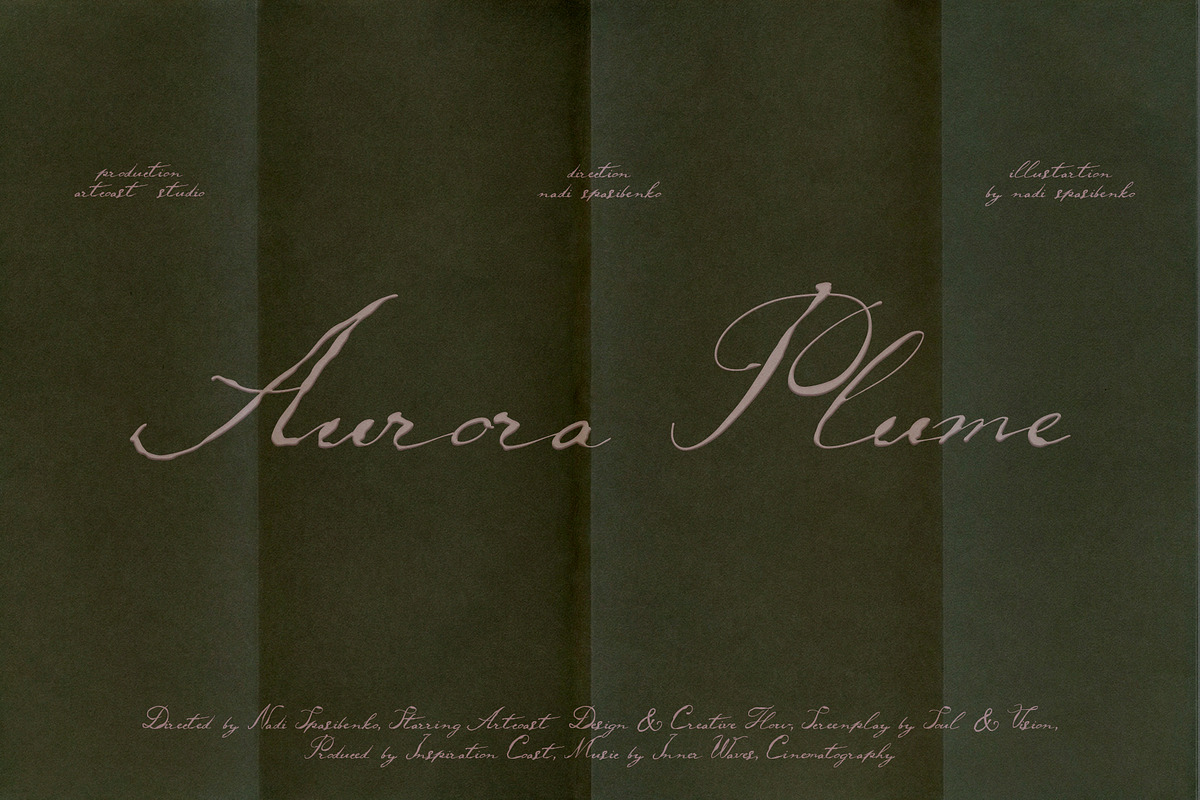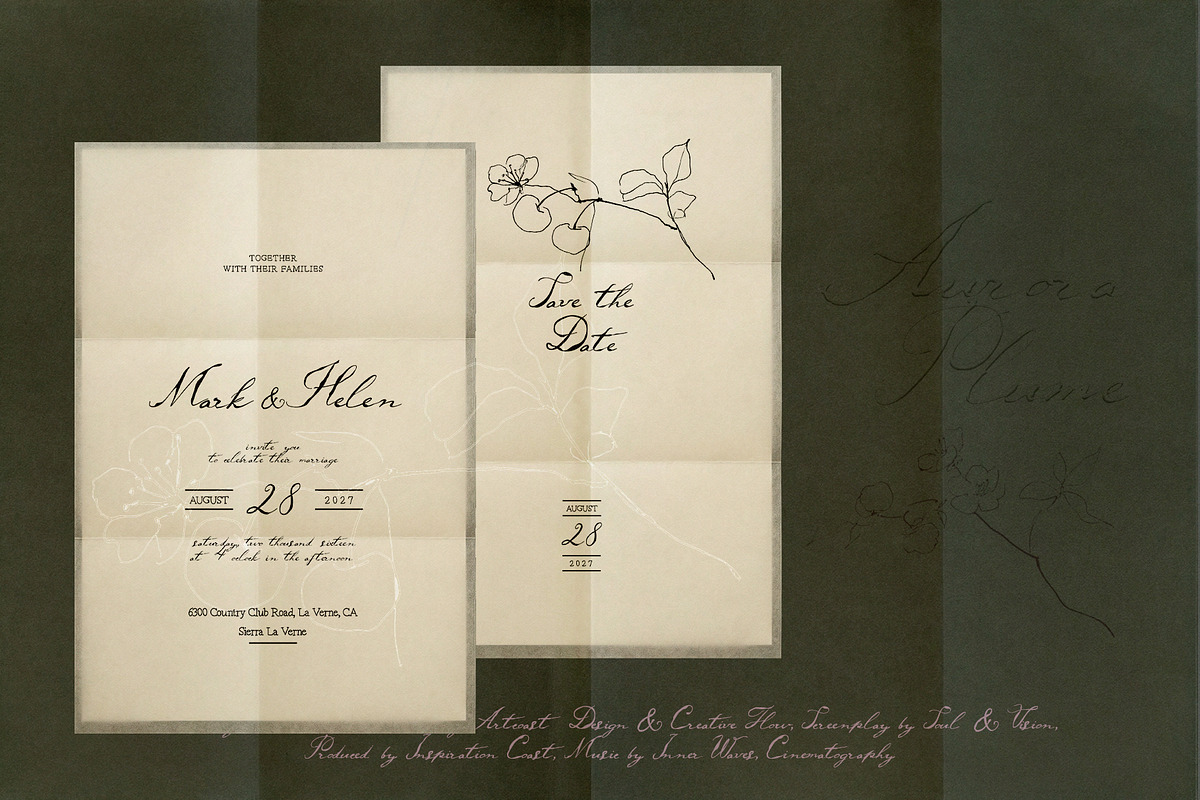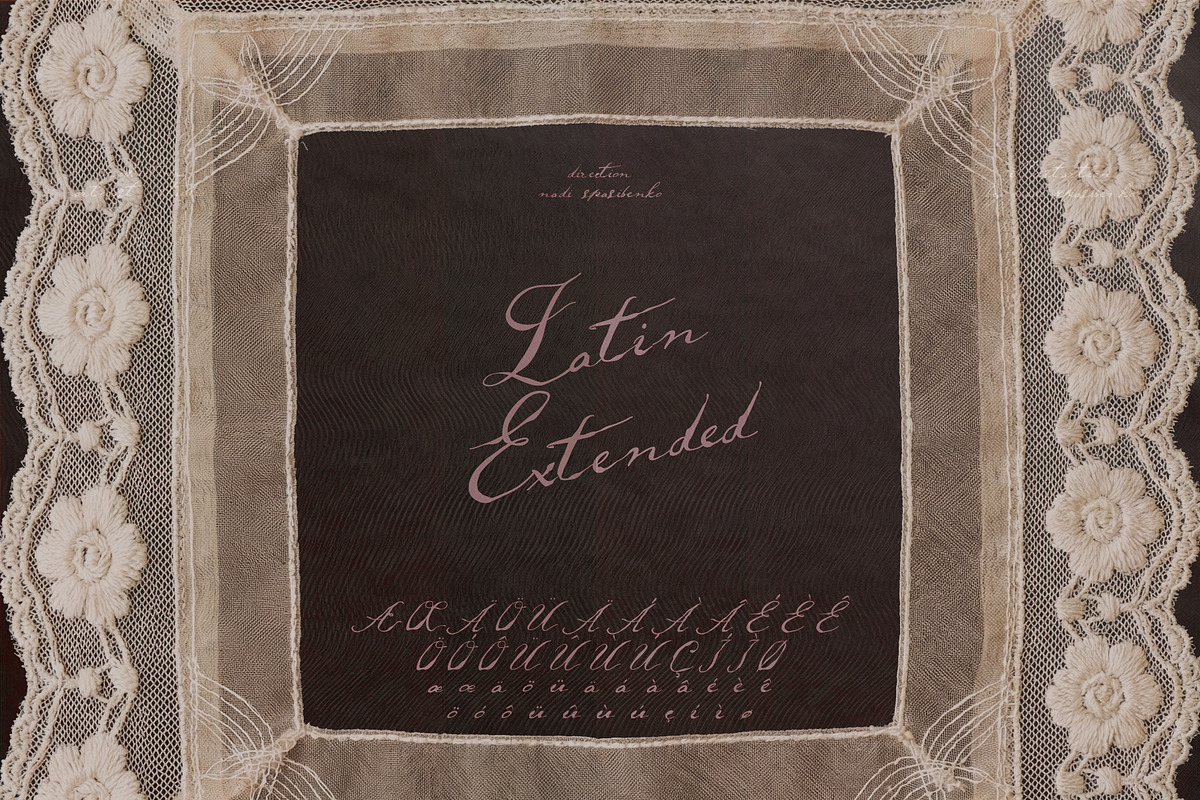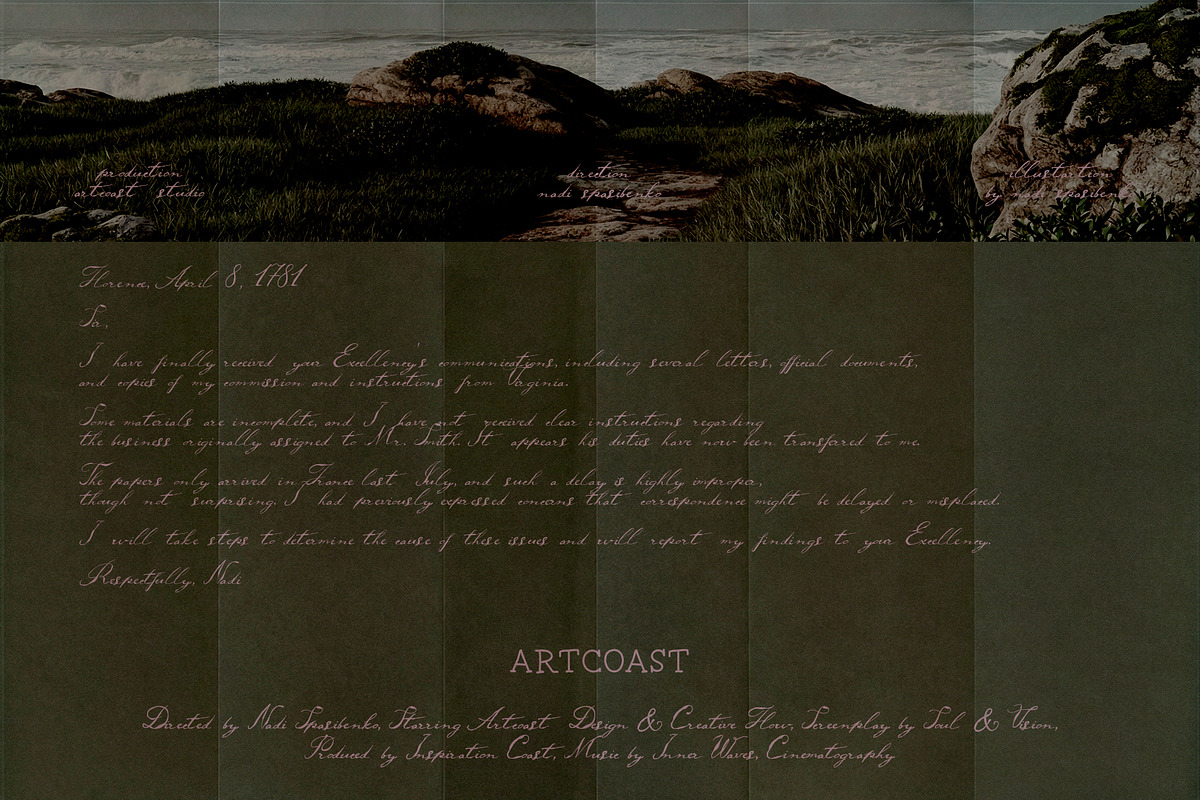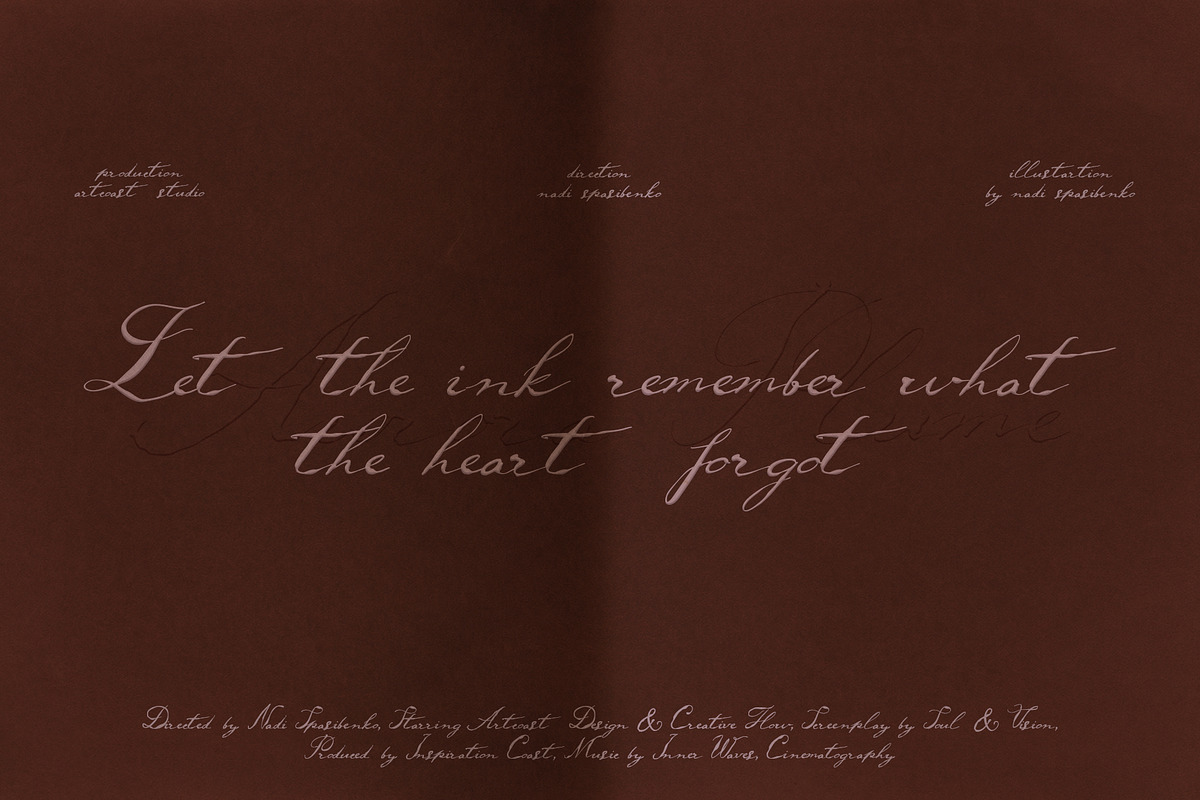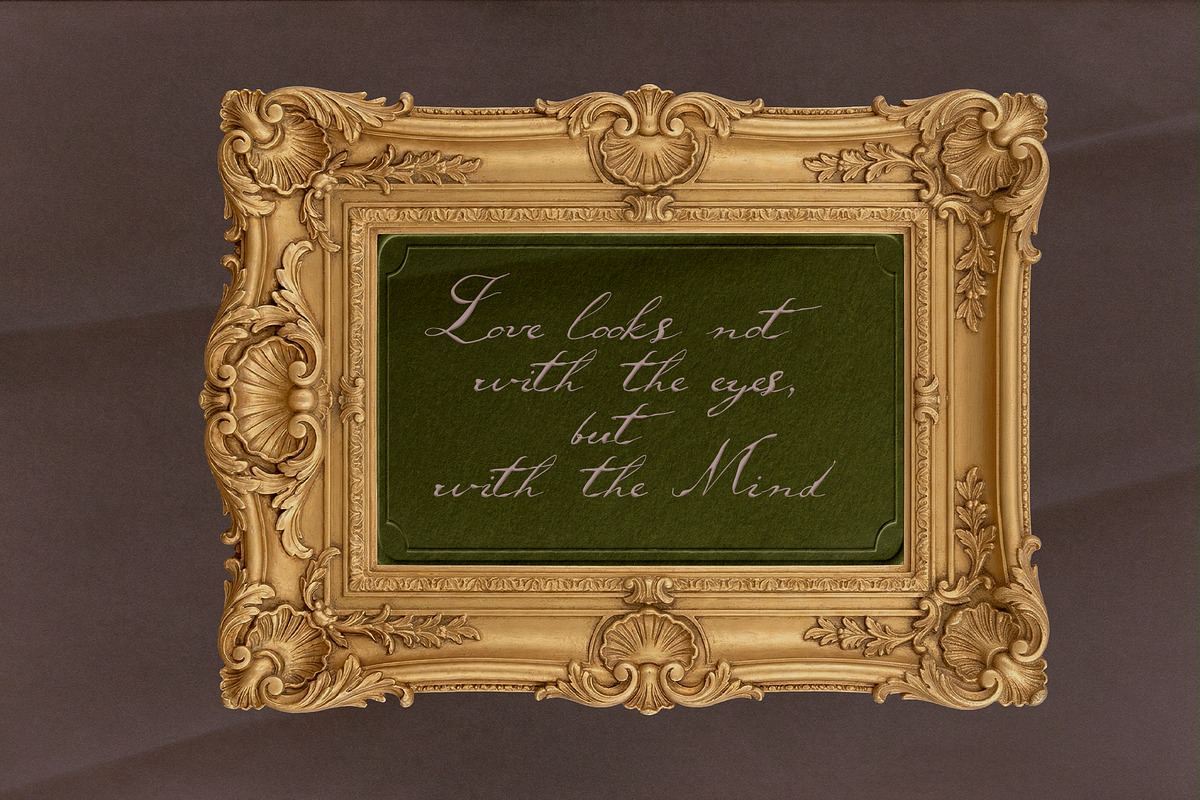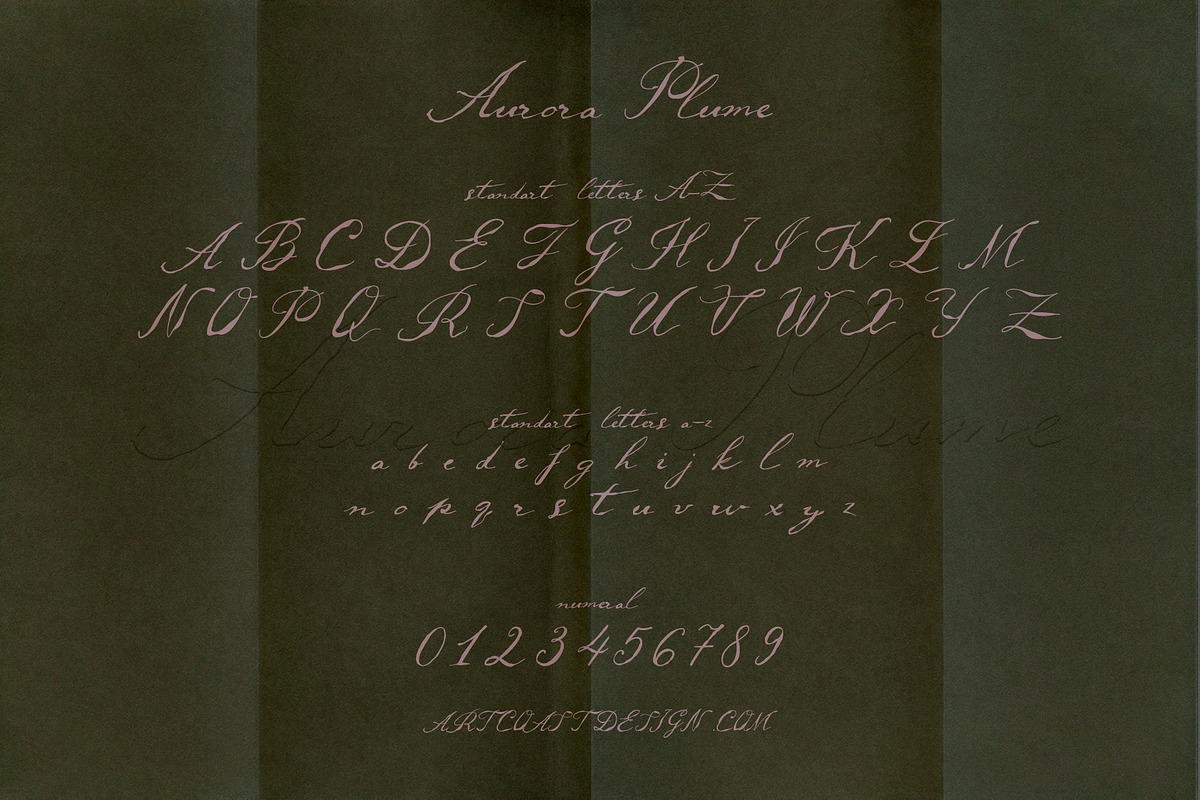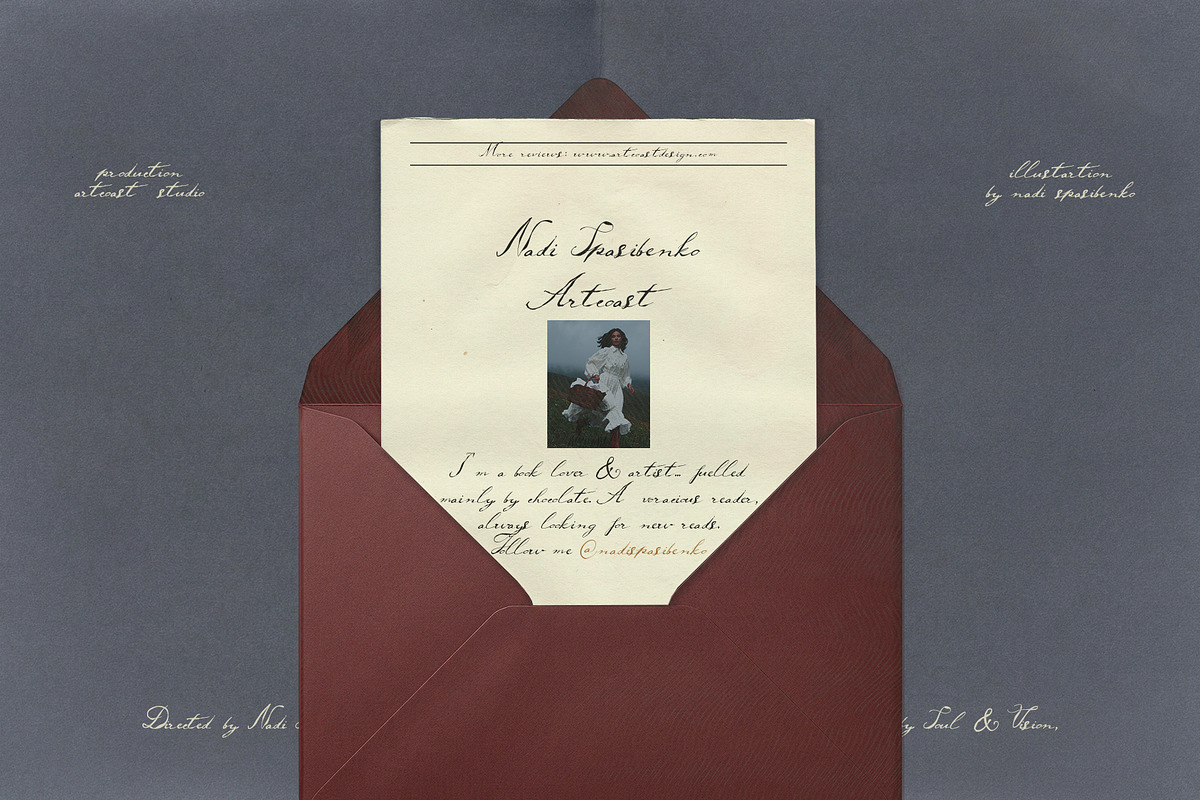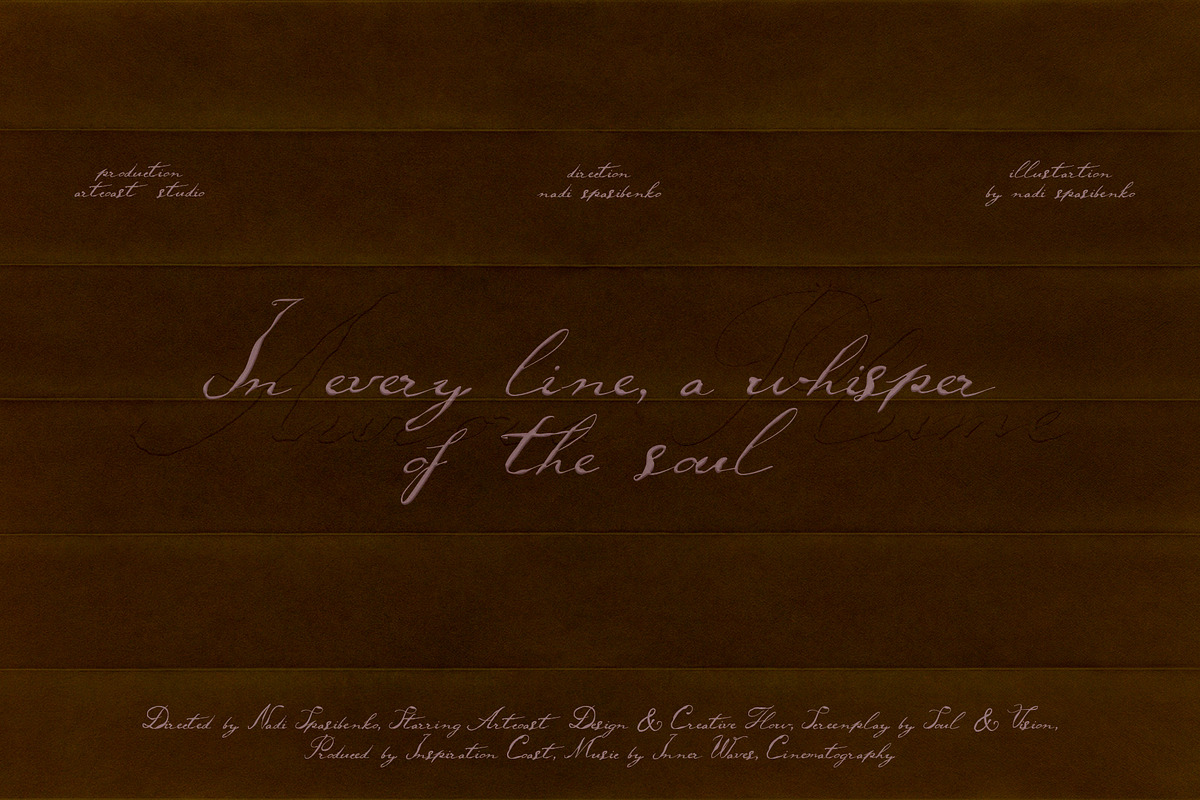
Aurora Plume | Luxury Wedding Font
Meet Aurora Plume — An Ode to Timeless Elegance.
Evoke the breathtaking allure of classic romance and high-end editorial design with Aurora Plume, a sophisticated ink calligraphy font. Inspired by the raw, organic flow of a vintage dip pen and the poetic grace of handwritten love letters, this font is designed to breathe life and emotion into your digital canvas.
Aurora Plume doesn’t just spell words; it tells a story. With its delicate curves, subtle ink-like textures, and perfectly balanced imperfections, it brings a tactile, "human" touch to any project. Whether you are crafting a luxury brand identity, designing ethereal wedding stationery, or creating moody, aesthetic social media quotes, this font delivers a premium, bespoke feel.
Perfectly suited for:
Fine Art Wedding Stationery: Invitations, save-the-dates, RSVP cards, and elegant seating charts.
Luxury Branding & Logos: Boutique fashion labels, artisan cosmetics, organic skincare, and high-end lifestyle brands.
Editorial & Print Design: Magazine layouts, book covers, author signatures, and poetic typography.
Digital Aesthetic: Moody Instagram quotes, Pinterest graphics, esoteric or tarot-themed designs, and sophisticated blog headers.
Packaging Design: Wine labels, artisan chocolate wrappers, and perfume boxes.
Full Character Set: Uppercase & Lowercase letters.
Numerals & Punctuation: A comprehensive set of standard and extended punctuation marks.
Multilingual Support: Extensive Latin Extended character set supporting major European languages
Design Tip: Pair Aurora Plume with a crisp, modern serif or a clean, minimalist sans-serif to create a striking, high-contrast visual hierarchy. It looks exceptionally stunning when used with gold foil, copper, or deep, moody color palettes (like forest green, terracotta, or deep sapphire).
Let the ink remember what the heart forgot. Add Aurora Plume to your typographic collection today and elevate your designs to a level of timeless luxury!